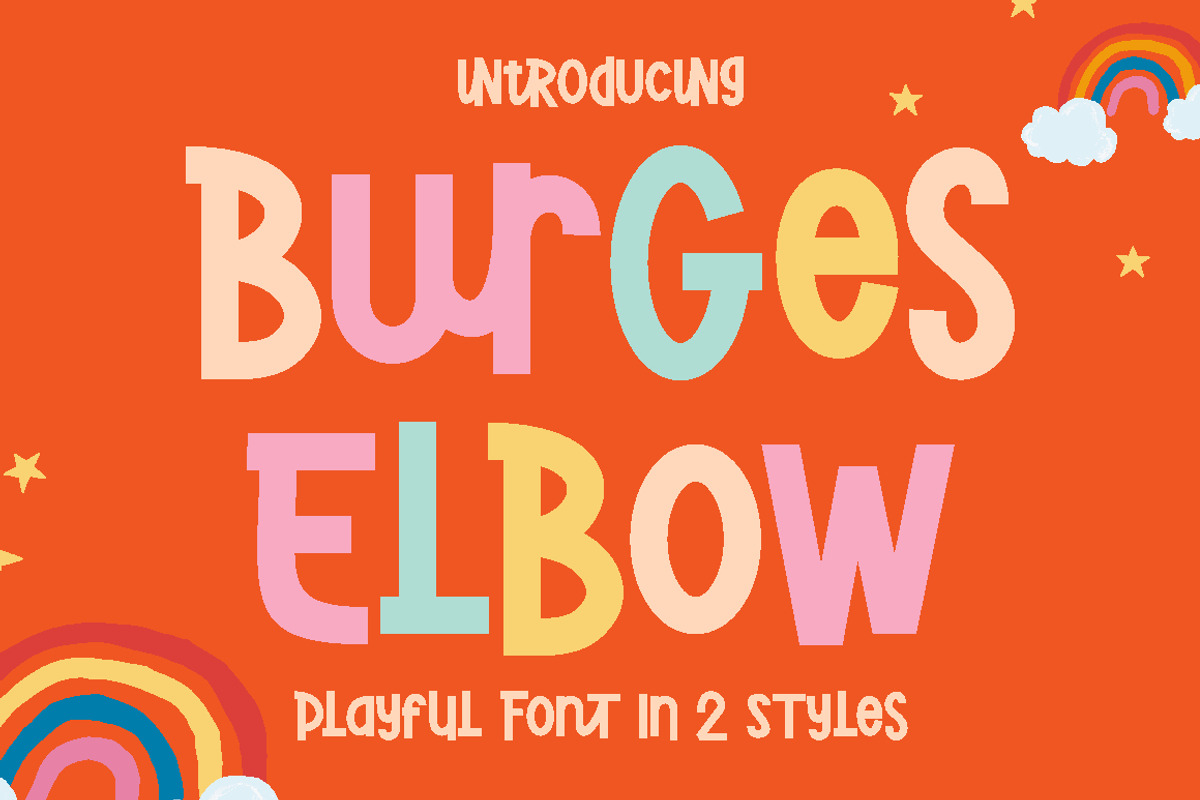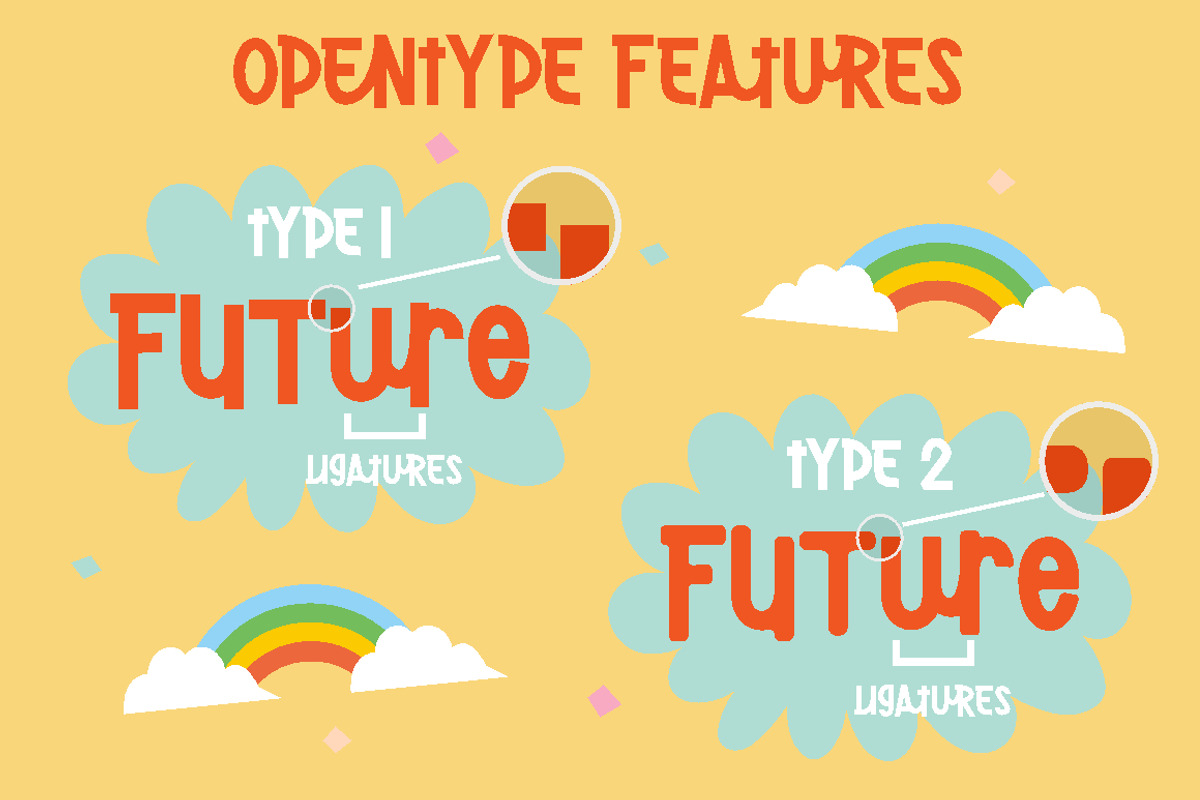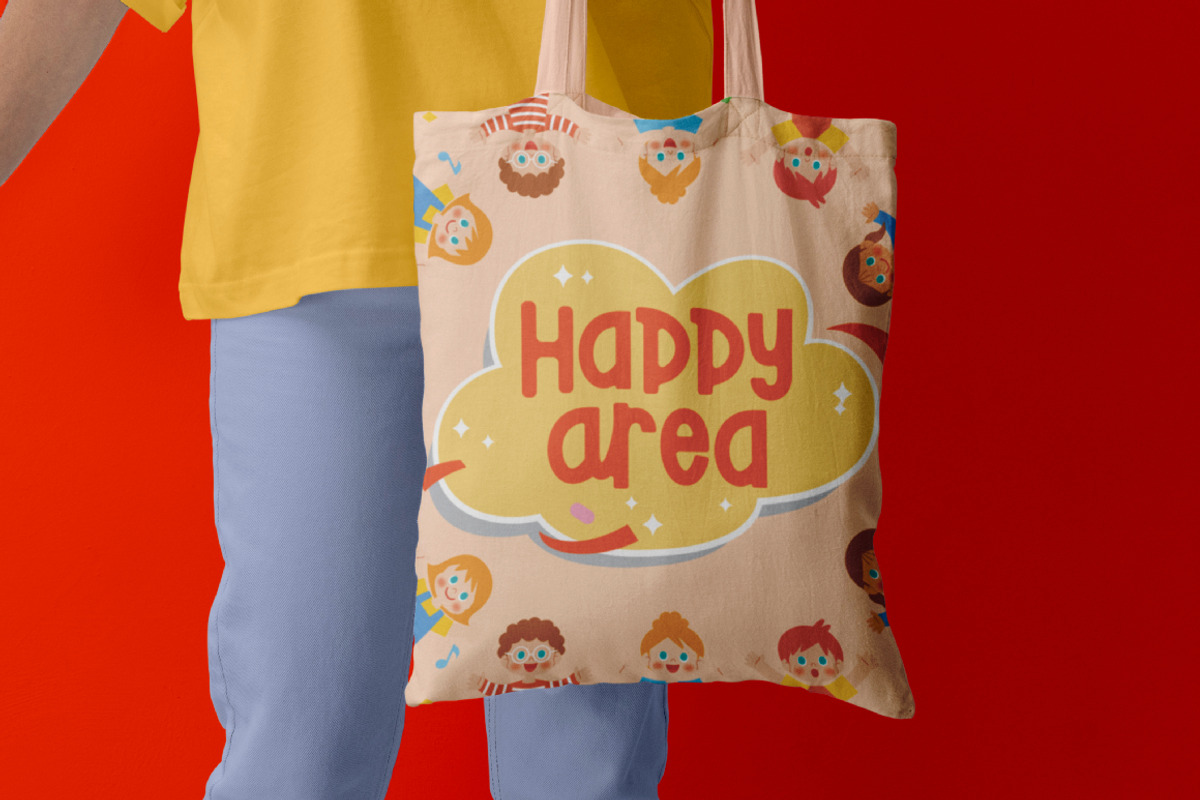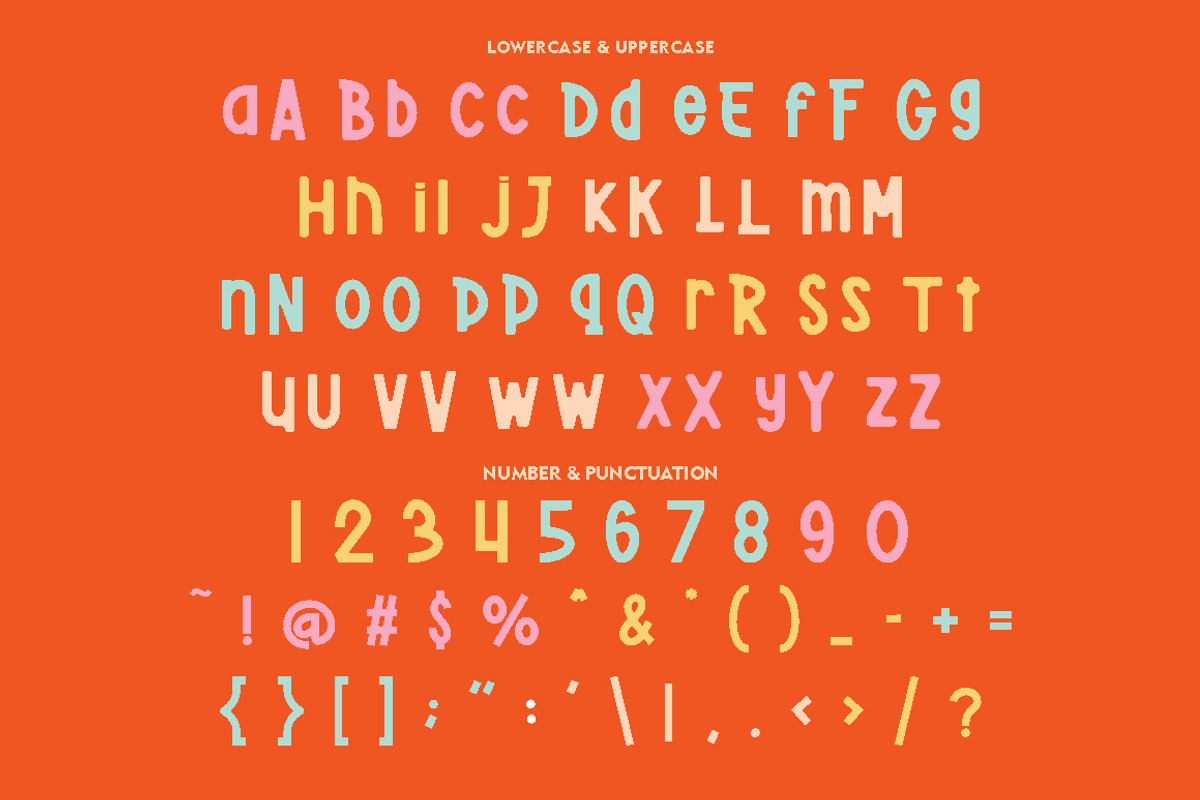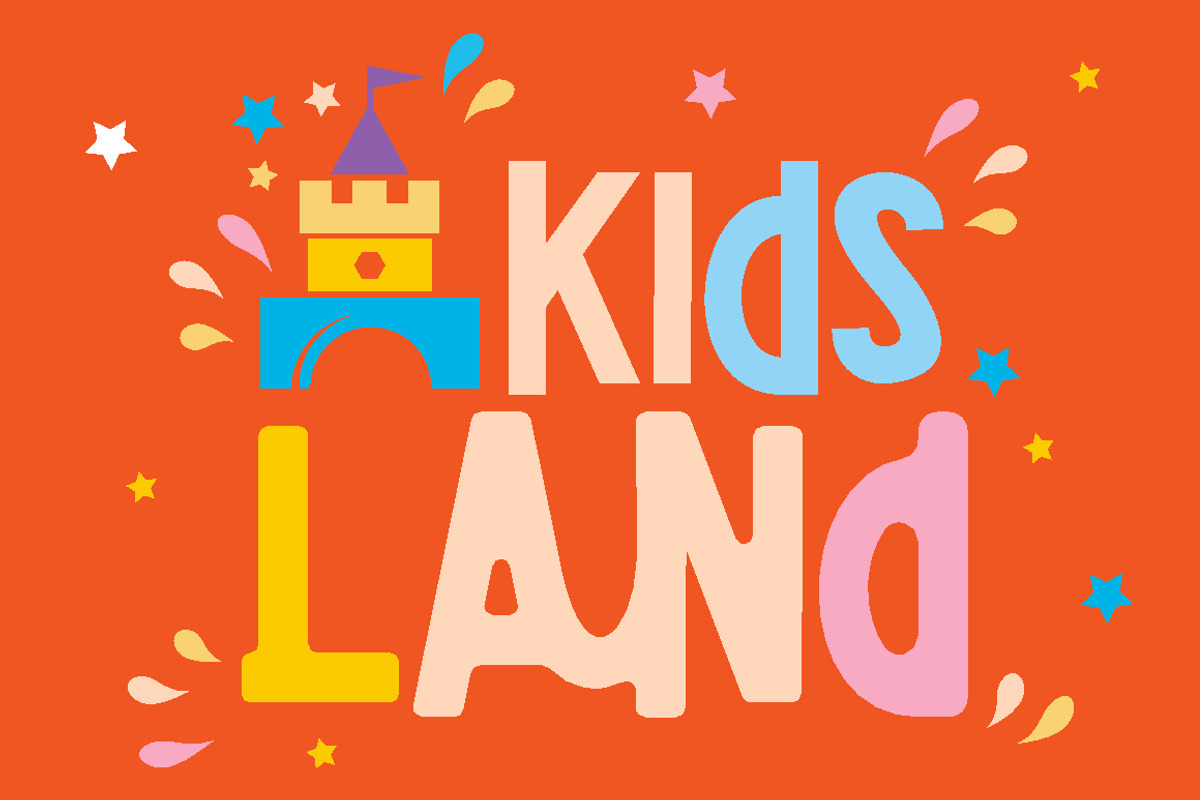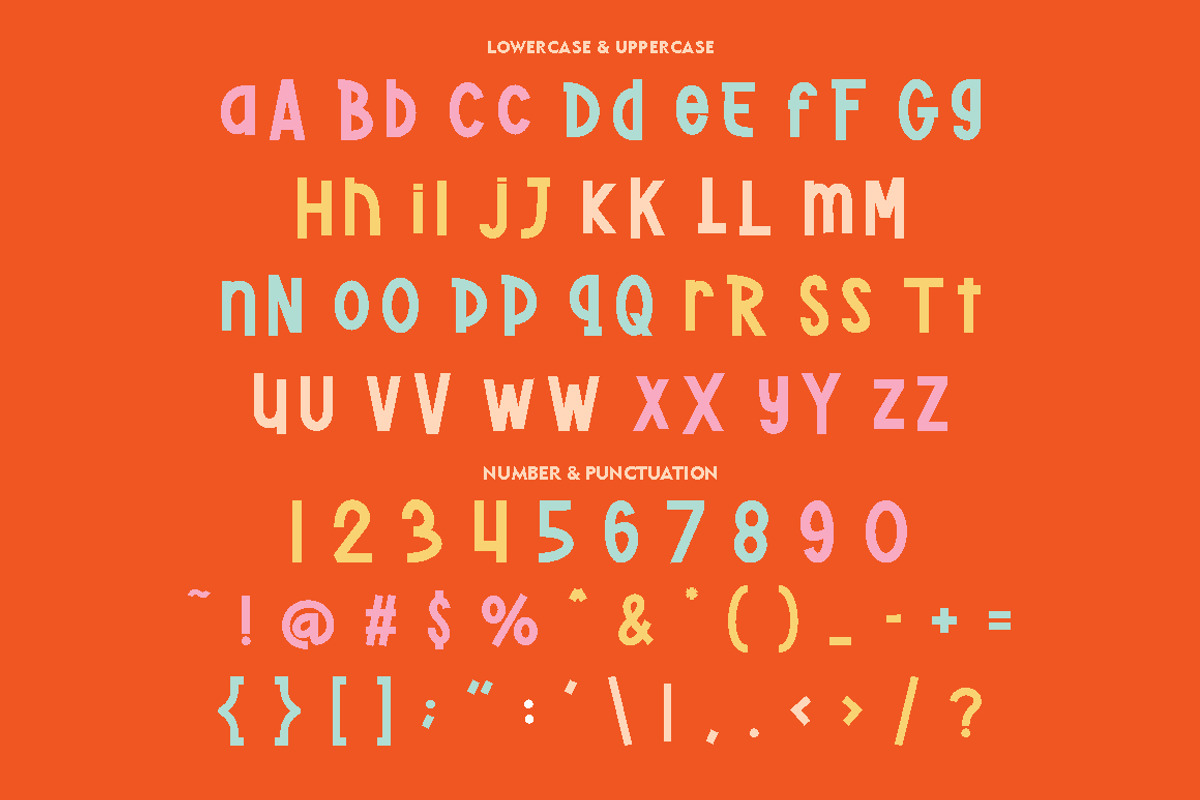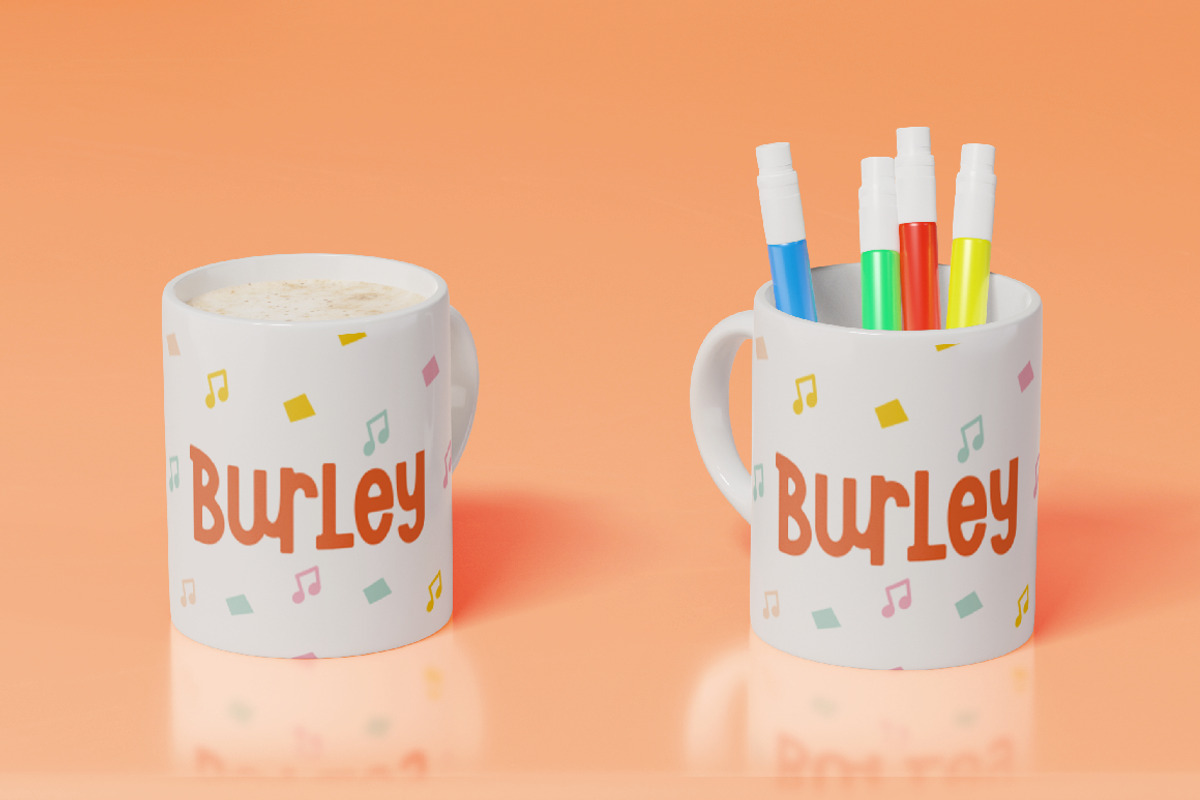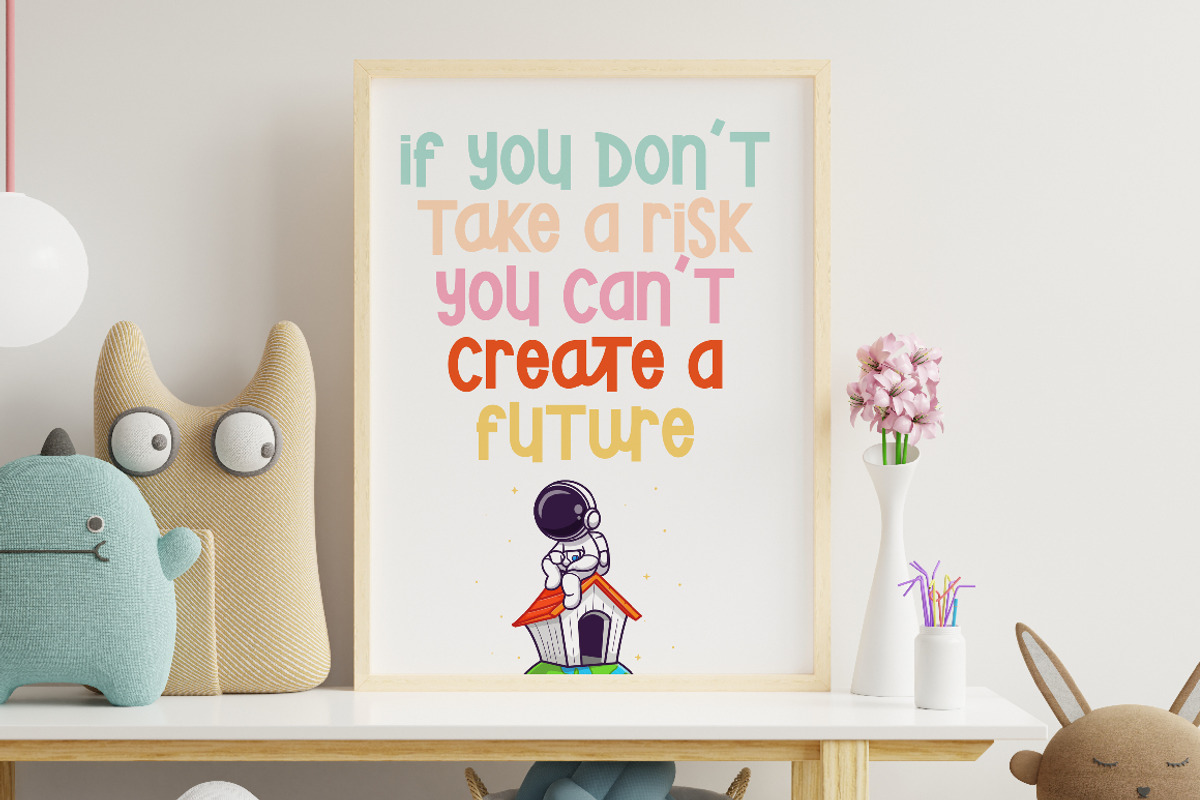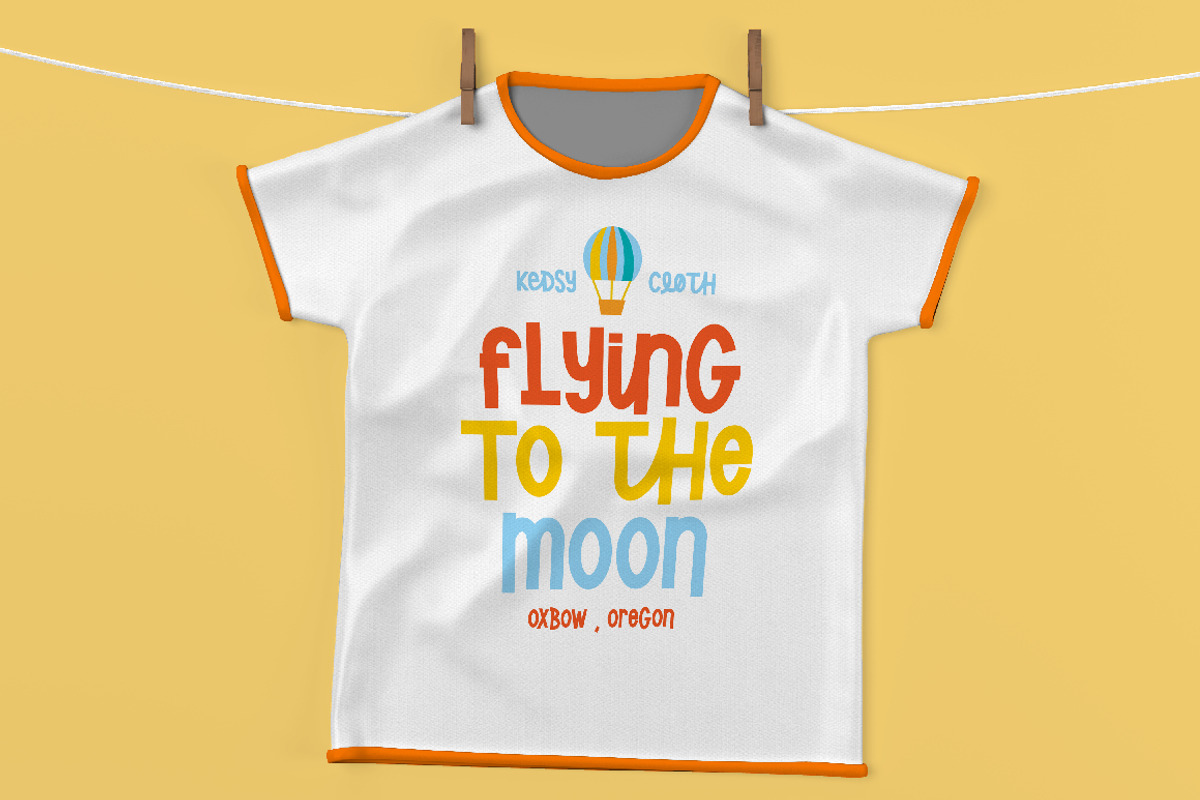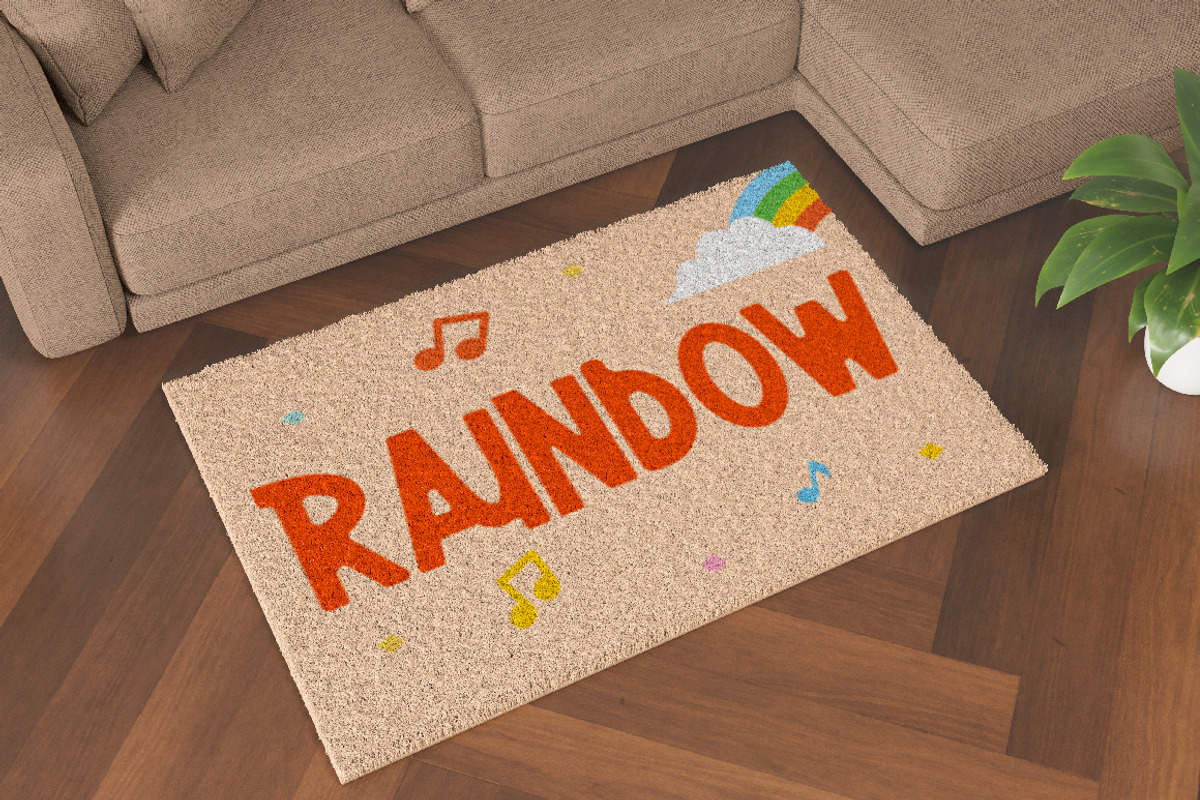
Burges Elbow - 2 Playful Font
Burges Elbow - Playful Font In 2 Styles
Created with the idea of bringing happiness and joy to any project, Burges Elbow is a perfect choice for those who want to add a touch of playfulness to their design.
To use Burges Elbow to its full potential, it would be great for designs aimed towards children such as book covers, posters, and flyers. Its playful and quirky nature would also make it a great choice for branding aimed at a younger audience or products that want to add a sense of fun and whimsy.
Burges Elbow comes with a variety of features, including uppercase and lowercase characters, opentype alternates and ligatures, and support for multiple languages. These features allow for a wide range of creative possibilities and make it easy to use in various projects.
Add a touch of fun and playfulness to your design with Burges Elbow. Its cute and whimsical nature will surely make your design stand out and bring a smile to anyone's face.
In summary, Burges Elbow is a playful font in 2 styles that is perfect for designs aimed at children or those looking to add a sense of fun and whimsy to their branding. With its various features and file types, Burges Elbow is a versatile choice that can be used in any design project.